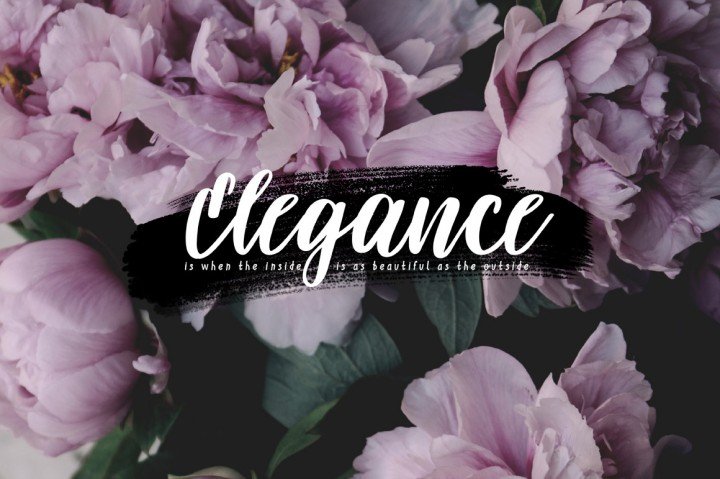
Darflow Handwritten Font
Continues to be a beautiful handwritten font. Introducing Darflow Handwritten Font! Darflow designed and shared by Mr.Typeman. Darflow is a romantic feminine font that simulates carefull handwritten lettering. But at the same time it has impeccable quality and the absence of any excesses. With this font your disign will look delicate and elegant!.Darflow comes with uppercase, lowercase, standard punctuation and special letters for most of the European languages.